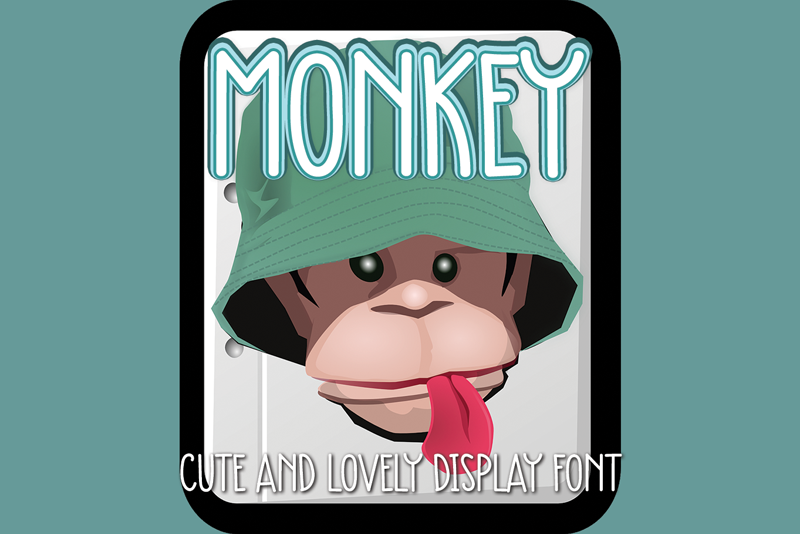
Preview and download Monkey Font. Created by Erik Luluk in Script Handwritten styles with Free for personal use license.
Font name: | Monkey |
Monkey is a cute and simple lettered handwritten font that can be used for all chalkboard quotes or teaching material! Its authentic look will add a personal and realistic feel to your designs. Attention : Monkey handwriting Font is prohibited to use this font for commercial purposes or for profit without the permission of the author/admin, without being known to use this font without permission, will be subject to sanctions 5x the specified price. This font is used only for demos (Demo license) If you want to use this font for commercial use please contact email: erikluluk0@gmail.com or click the link below: https://www.creativefabrica.com/product/monkey-155/ref/745146/ If you want to see more other fonts, please click:https://www.creativefabrica.com/designer/erik-studio/ref/745146/ Any donations are very appreciated. Paypal account for donation: https://paypal.me/eriksupriyant thanks. |